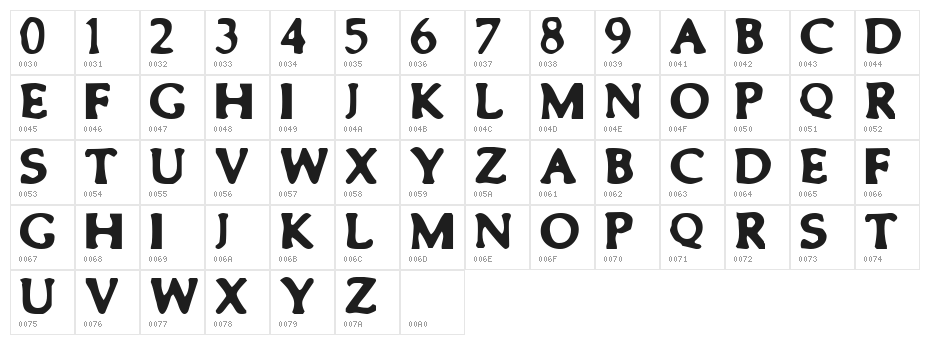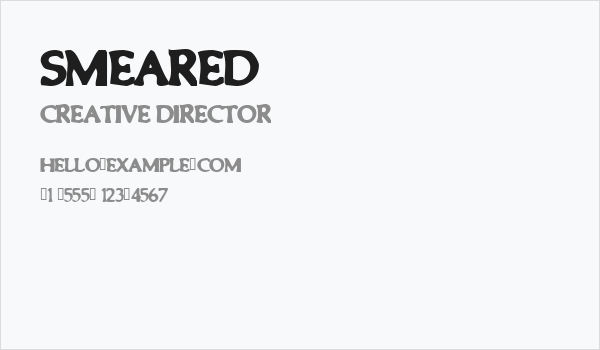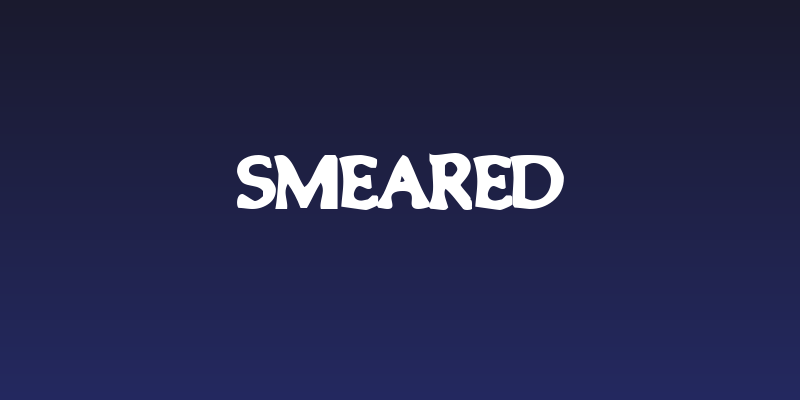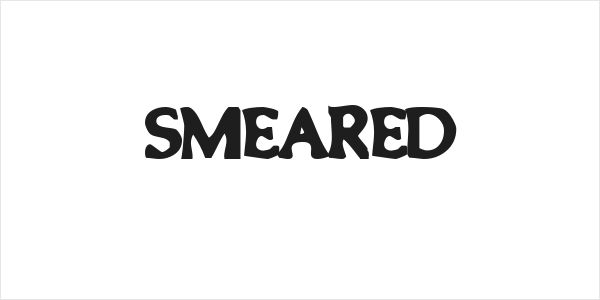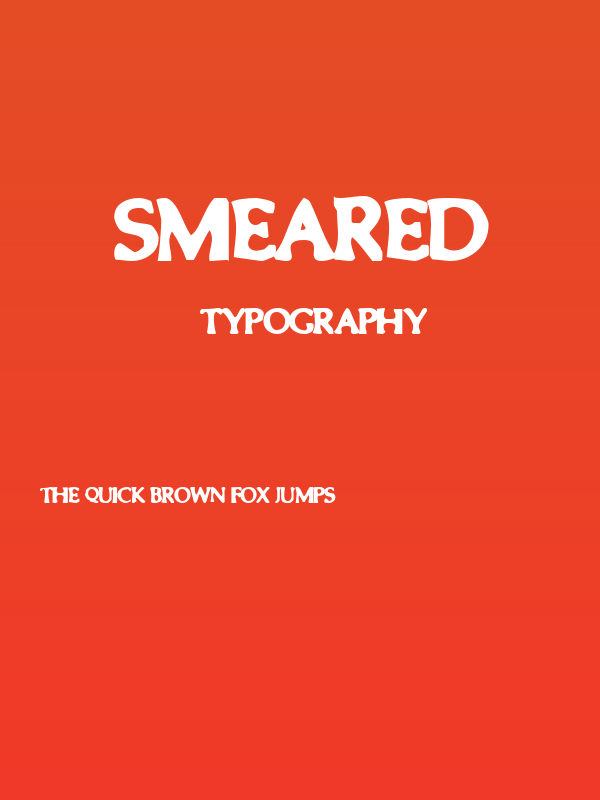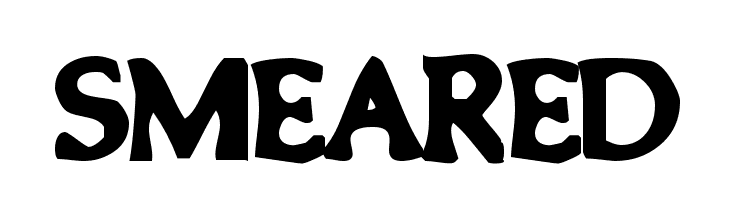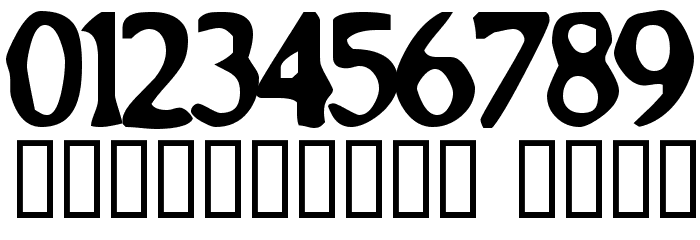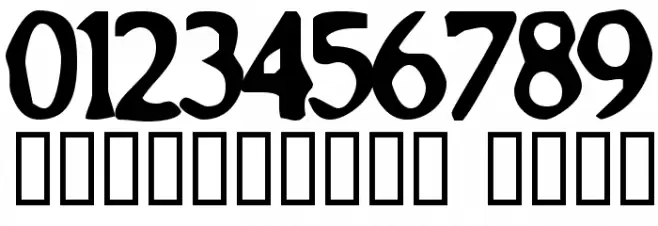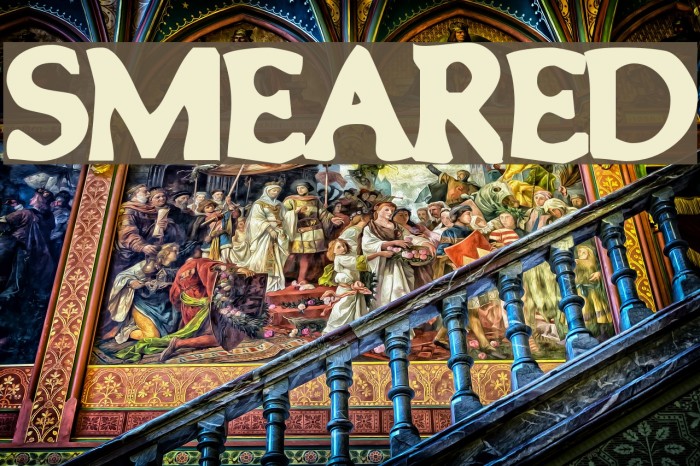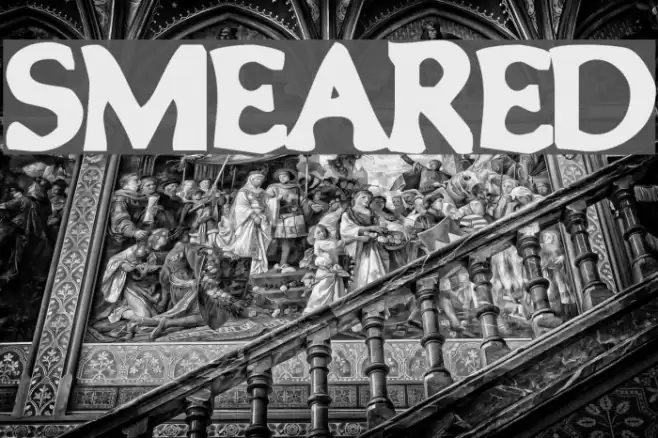
Smeared Font
✎ Distorted Eroded
| Style général | Playful, Whimsical |
| Projets proposés | Ideal for children's books, playful branding, event posters, and creative packaging designs. |